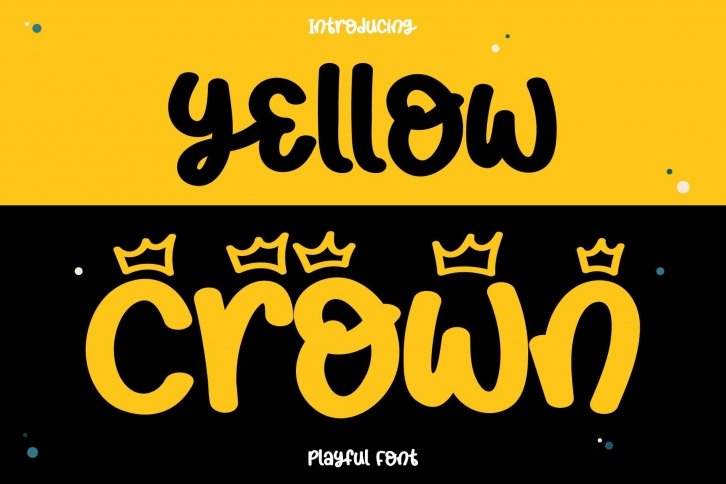
Yellow Crown is a fun and playful handwritten font. This font is neatly crafted and highly detailed. Whatever the topic, this font will be a wonderful asset to your font library, as it has the potential to enhance any creation.